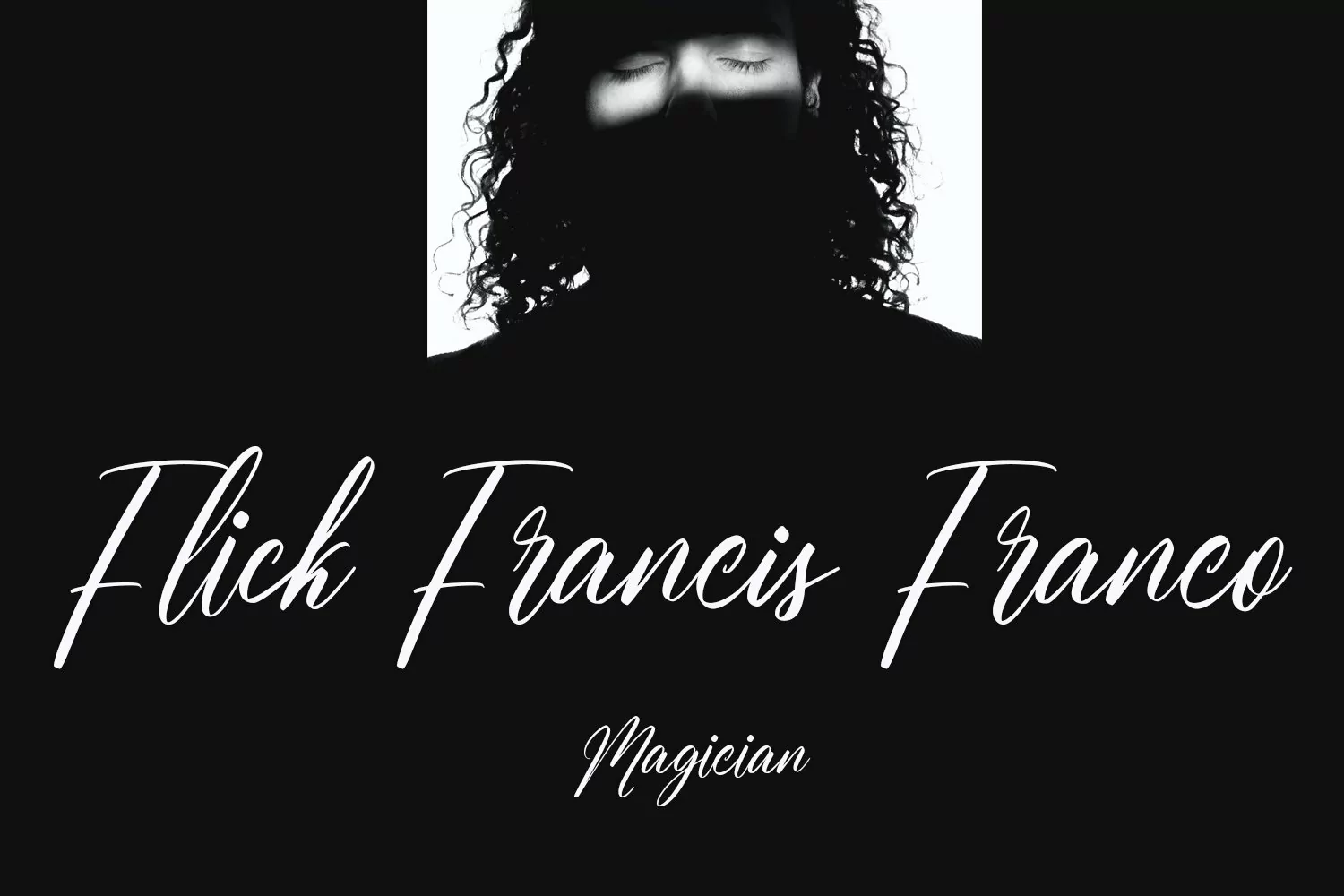
Moranhill is an elegant cursive calligraphy font. With thin contrast stroke, fun character with a bit of ligatures and stylistic alternates. To give you an extra creative work. Moranhill font support multilingual more than 100+ language. This font is good for logo design, Social media, Movie Titles, Books Titles, a short text even a long text letter and good for your secondary text font with sans or serif. Make a stunning work with Moranhill font.